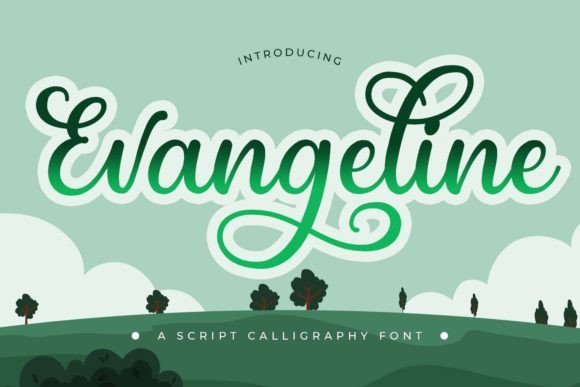
Discover the Magic of Evangeline Font
Have you ever stared at a blank page, waiting for inspiration to strike? As creatives, we’ve all been there – searching for that perfect spark to bring our ideas to life. And then, it happens. A single font catches our eye, and suddenly, the words start flowing. For designers, typography is the key to unlocking the essence of a project. It’s what turns a simple message into a work of art.
Enter the Evangeline Font, a magical script font carefully crafted to add a touch of elegance to any creative project. With its beautiful curves and refined lines, Evangeline Font is the perfect companion for designers seeking to elevate their work. Whether you’re a seasoned pro or just starting out, this font is sure to become a trusted ally in your creative journey.
So, what makes Evangeline Font so valuable to designers? Its versatility, for one. From invitations and greeting cards to branding and advertising, Evangeline Font adapts seamlessly to any style or theme. With its timeless charm, it’s the perfect choice for designers who want to create something truly special.
Evangeline Font Key Features
- Font Family: Evangeline
- Unique Characteristics: Elegant script design, swashes, and ligatures for a sophisticated and handwritten look
Evangeline Font Review
As a designer, I’ve had the chance to work with many fonts, but Evangeline has left a lasting impression on me. ✨ One of the things that stands out about this font is its elegant and refined look, making it perfect for projects that require a touch of sophistication. The font’s clean lines and subtle curves give it a timeless feel that will never go out of style.
Another aspect that I appreciate about Evangeline is its versatility. ✨ It works well for both body text and headings, and its large x-height makes it easy to read even at smaller font sizes. Additionally, the font’s extensive language support makes it a great choice for projects that require multilingual text.
However, there are some limitations to consider. ⚠️ For one, Evangeline is a bit on the heavier side, which can make it difficult to read in large blocks of text. Additionally, some users may find the font’s style a bit too formal or traditional for their taste.
Overall, I would give Evangeline 4 out of 5 stars. While it may not be the best choice for every project, it’s a solid font that will add a touch of elegance to any design. If you’re looking for a font that exudes sophistication and refinement, Evangeline is definitely worth considering.
- Elegant and refined look
- Perfect for projects that require sophistication
- Clean lines and subtle curves
- Extensive language support
- Works well for both body text and headings
For a beautiful and elegant look, pair Evangeline Font with a simple background and bold colors.
For a professional look, use Evangeline Font in conjunction with other elegant fonts and bold graphics.
For a beautiful presentation, use Evangeline Font in conjunction with other elegant fonts and bold graphics.
Tips for Getting the Most Out of Evangeline Font
Here are some tips to get the most out of Evangeline Font:
- Use Evangeline Font in conjunction with other elegant fonts for a professional look.
- Pair Evangeline Font with bold colors and simple backgrounds for a beautiful and elegant look.
- Experiment with different font sizes and styles to create a unique and eye-catching design.
Alternatives to Evangeline Font for Designers